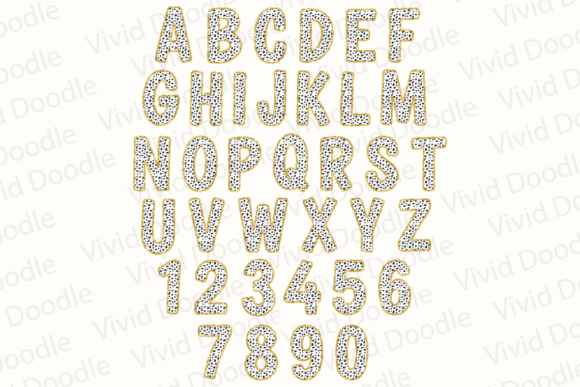
Fancy Christmas Font
Fancy Christmas Font is a beautifully crafted typeface that captures the elegance and magic of the holiday season. With its graceful lettering and festive flair, this font is perfect for adding a touch of sophistication to your Christmas-themed projects. Whether you’re creating holiday cards, invitations, posters, or festive decorations, Fancy Christmas Font brings a sense of style and joy to your designs.
Ideal for school projects, creative art, and graphic design, this font is versatile and timeless. Let Fancy Christmas Font illuminate your holiday creations with its enchanting and festive charm, making every project a celebration of the season!